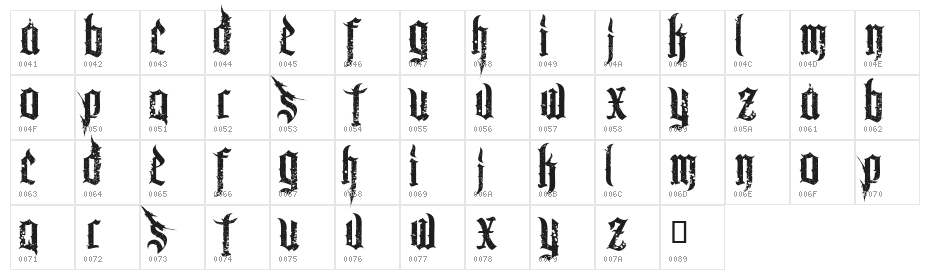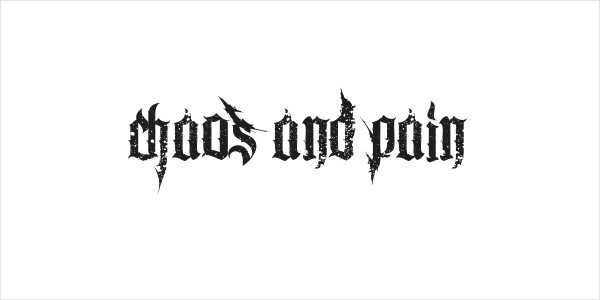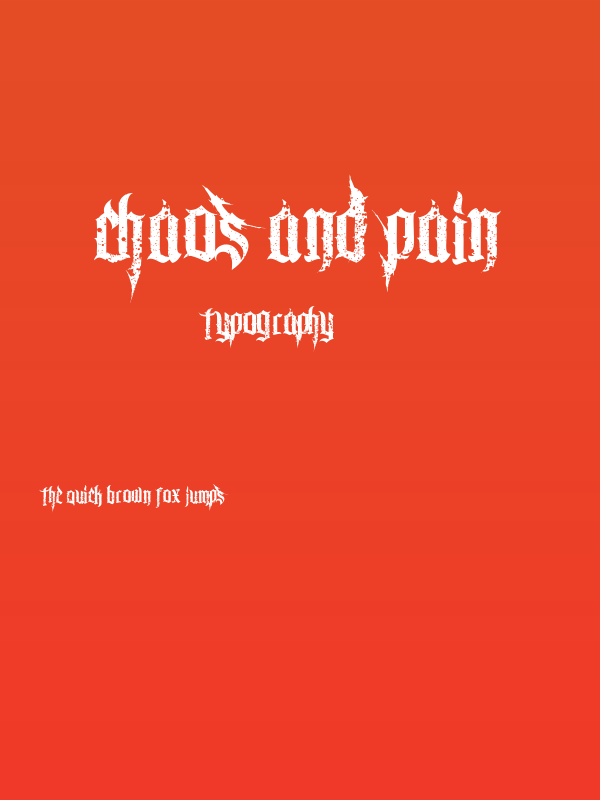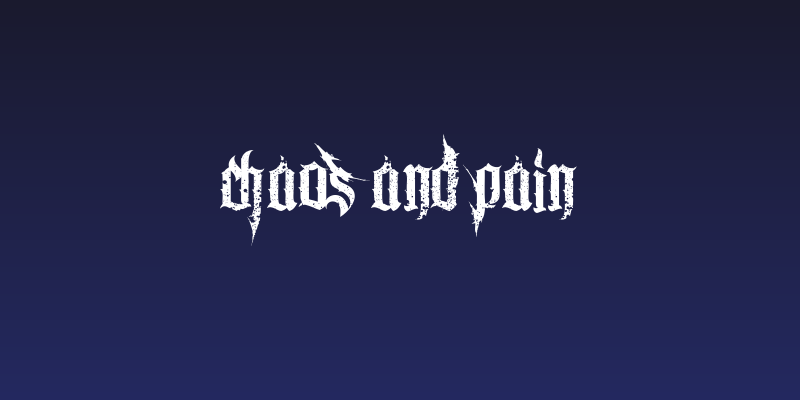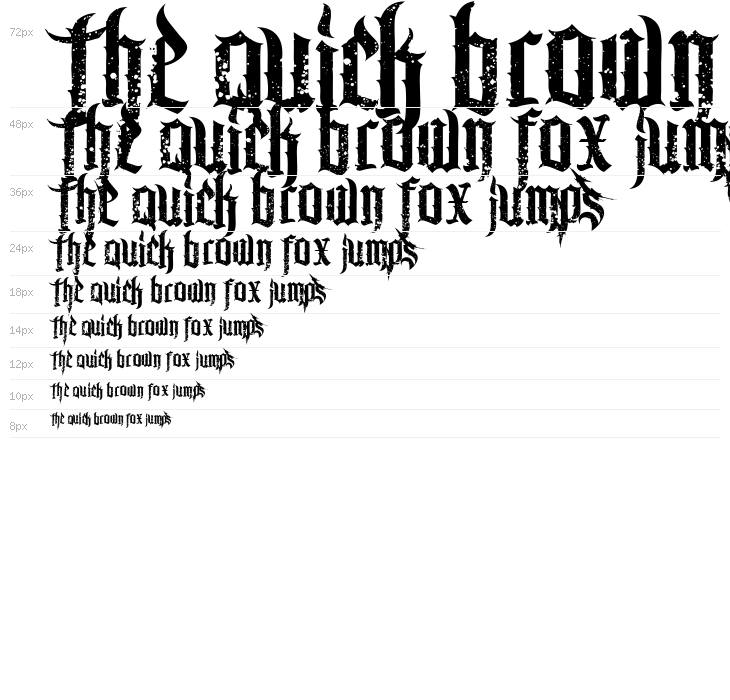
Chaos and Pain Font
Chaos and Pain Description
This font features a bold, distressed blackletter style with intricate details and a textured appearance. The characters are heavily stylized, with sharp edges and dramatic flourishes, giving it a gothic and medieval feel. The texture adds a chaotic and rugged look, making it stand out as a display font. Each letter is unique, with varying levels of distress and embellishment, creating a sense of movement and energy. The overall design is both aggressive and artistic, suitable for projects that require a strong visual impact.
| Proposed Projects | Ideal for album covers, posters, tattoos, and branding that require a gothic or medieval aesthetic. |